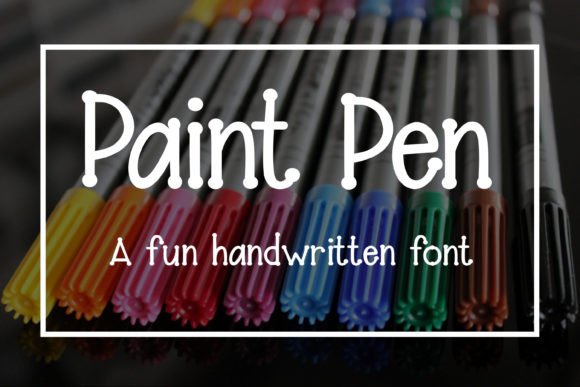
Introducing Paint Pen Font, the playful and charismatic handwritten font that will inject an irresistible dose of charm into your creative projects. Paint Pen isn't just another font—it's an artistic stroke of genius. Its fluid lines, reminiscent of a skilled artist's hand, evoke a sense of warmth and authenticity.
With Paint Pen, you'll experience the joy of creating designs that exude personality and captivate the eye. Its inviting curves and whimsical details will transform your words into enchanting visual treats. Imagine your social media posts, invitations, and branding materials bursting with color and personality, leaving a lasting impression on your audience.
One of the highlights of Paint Pen is its remarkable legibility. Printed or on screens, Paint Pen ensures that your message is communicated with utmost clarity. Its well-balanced letterforms and generous spacing make for effortless reading, enhancing the user experience and leaving your audience fully engaged with your content.
Whether you're a seasoned designer or just starting out, Paint Pen is your perfect companion. Its versatility extends from digital designs to print media, making it a font that adapts to your every creative need. Craft stunning logos, eye-catching posters, whimsical illustrations, and more, all with the power of Paint Pen.
So, embrace the magic of Paint Pen and let your designs flourish with its captivating charm. Experience the joy of creating projects that truly shine, with a font that sparks creativity and leaves an indelible mark on your audience's hearts. Download Paint Pen today and embark on a design journey unlike any other. Paint Pen—the font designed to paint smiles on your audience's faces.